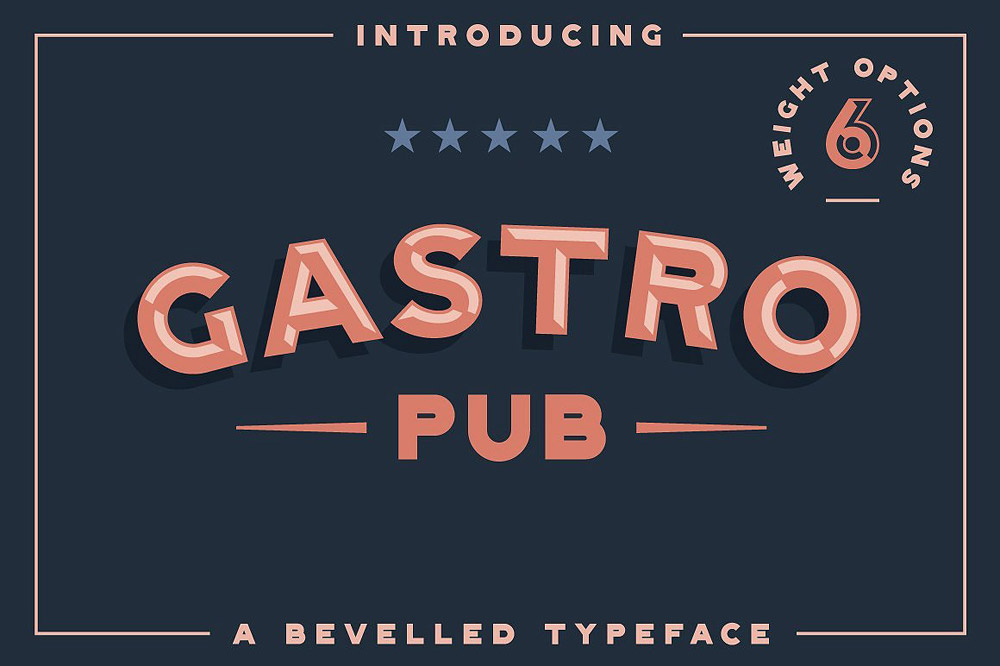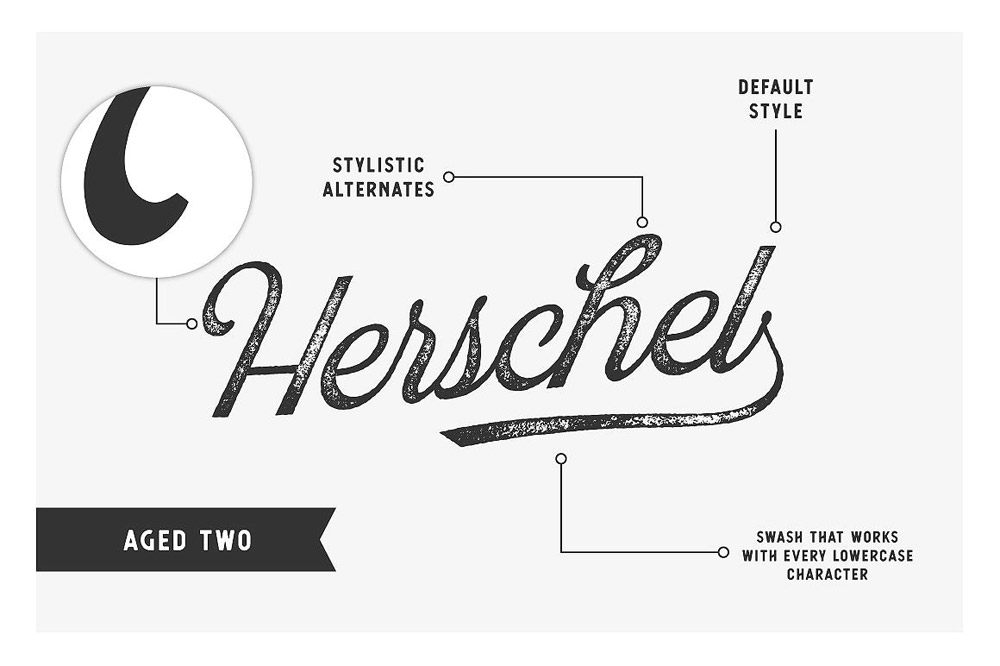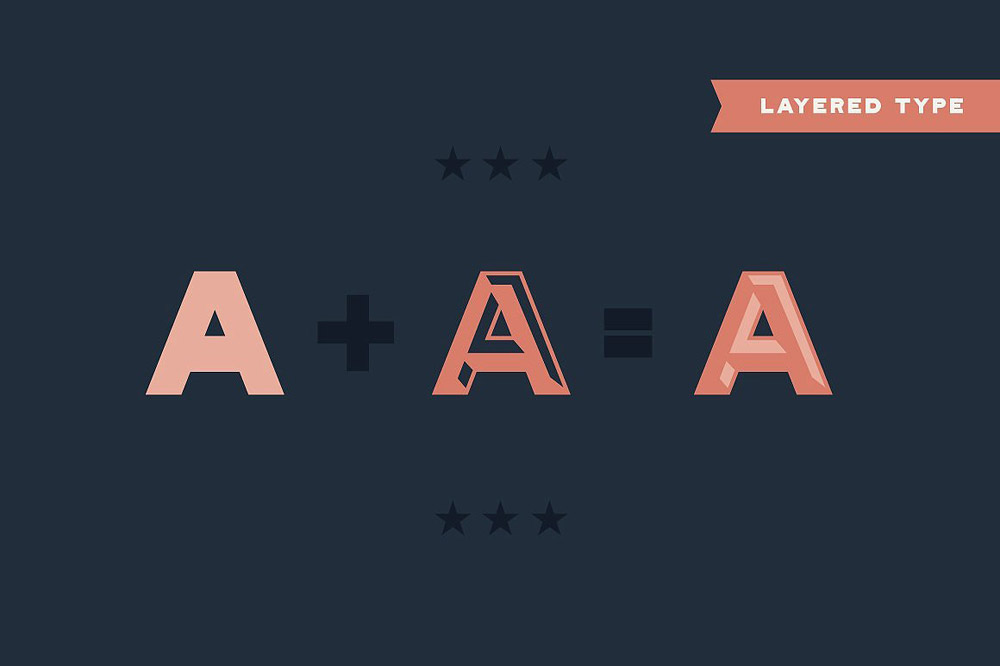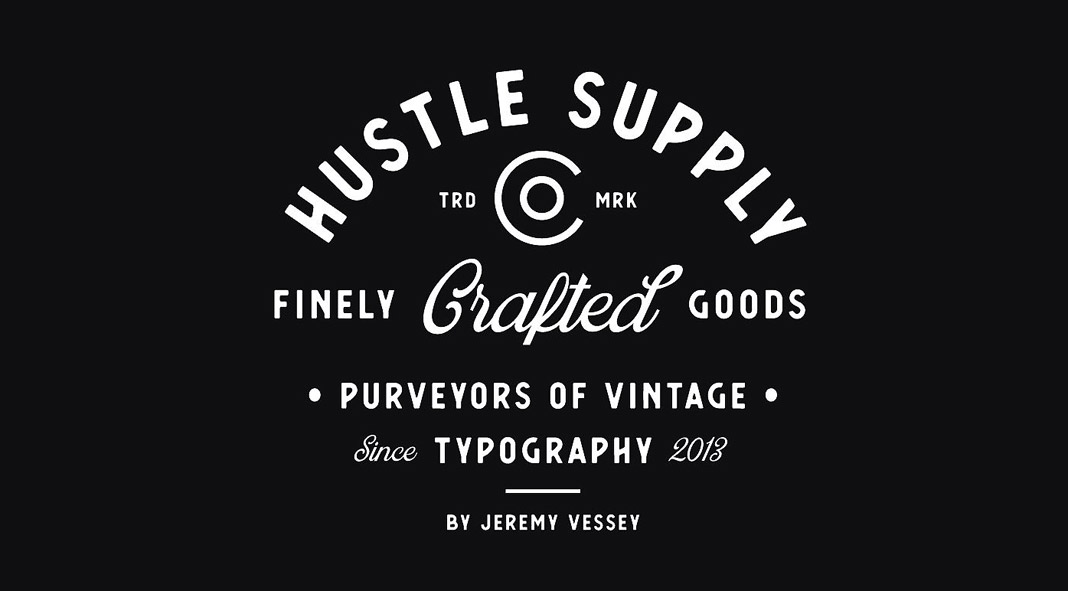
The Collector’s Font Bundle—53 eye-catching vintage fonts from HUSTLE SUPPLY CO.
Jeremy Vessey’s design studio HUSTLE SUPPLY CO. is well known for creating high-quality, vintage-inspired graphic resources and typefaces. Jeremy truly knows how to add this extra dose of vintage flair to all of his designs. The Collector’s font bundle proves it once again, his vintage designs are simply outstanding in every way. Equipped with 53 high-quality fonts, this huge collection includes everything you need to create stunning vintage-inspired typography. Whether signage, branding or packaging design, the bundle offers everything you need. Some of the typefaces come with a natural textured style. Furthermore, the set includes variants with stylistic alternates or even layered fonts. But that’s not all! The bundle also includes a set of 15 vintage logo templates. They are fully editable in tools such as Adobe Illustrator. For further information on this special offer and all individual vintage fonts, please follow the link below.